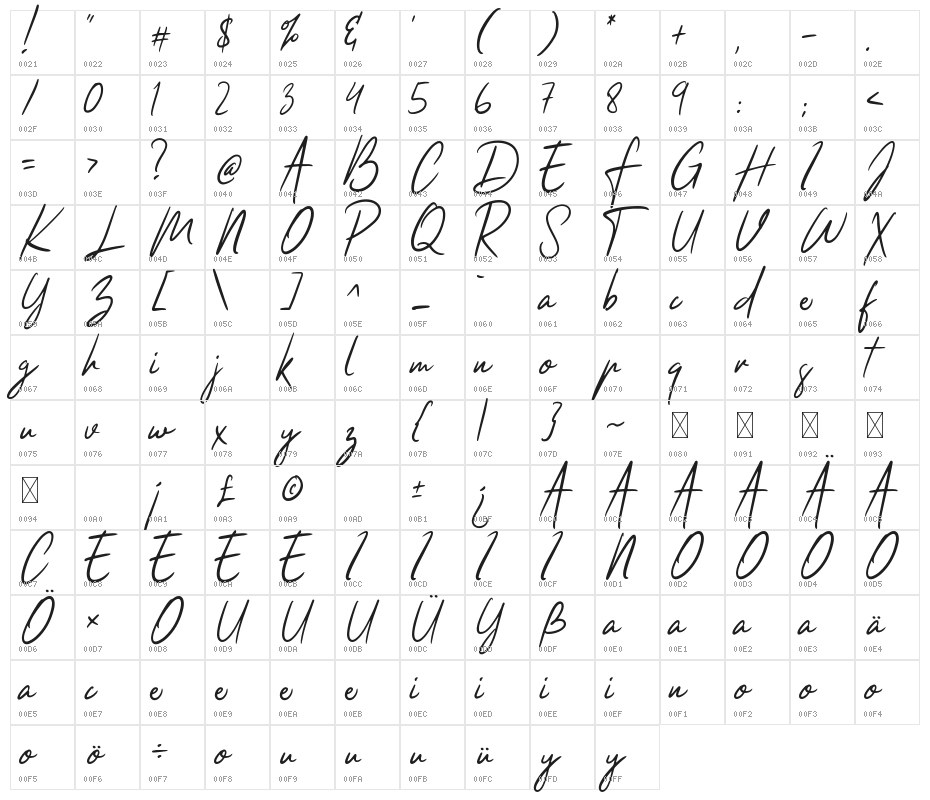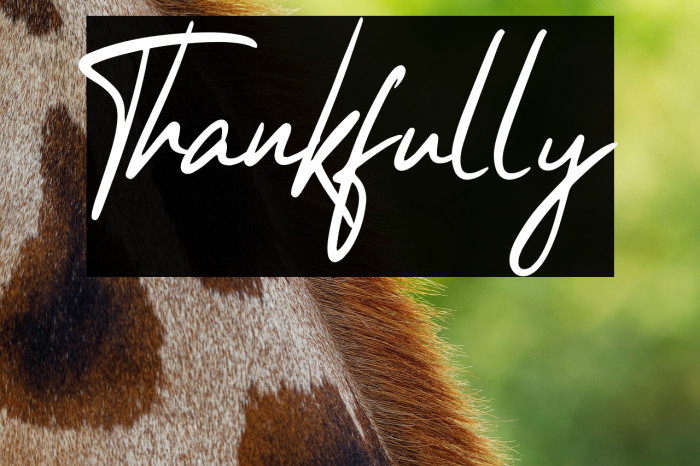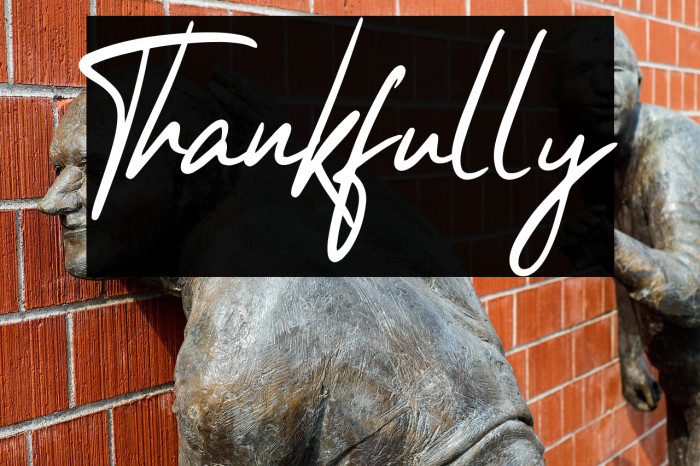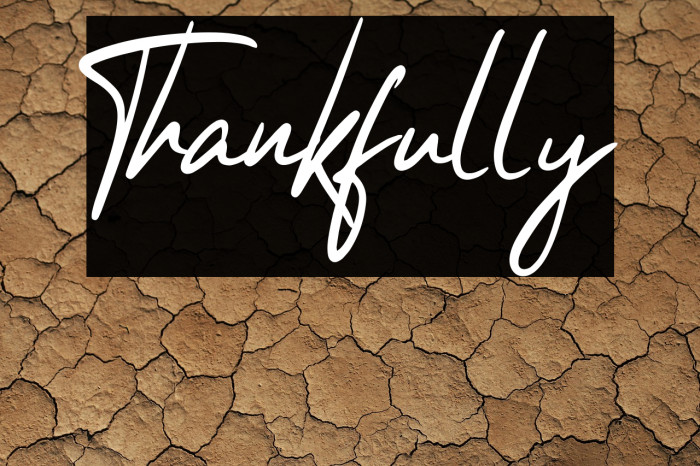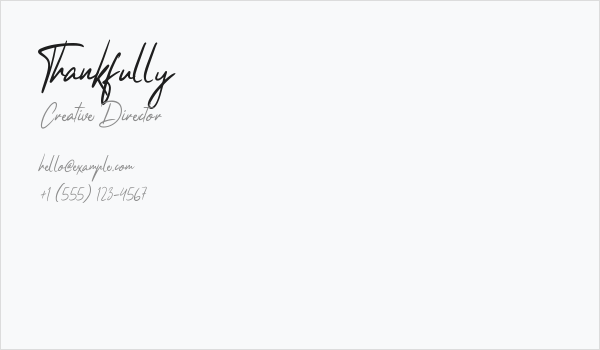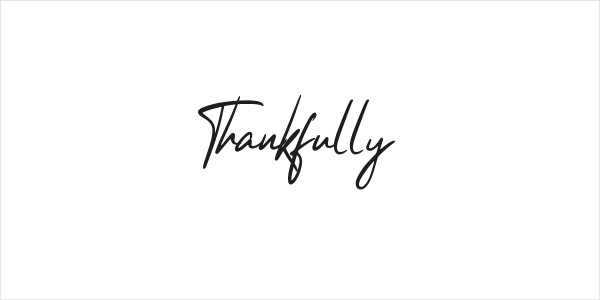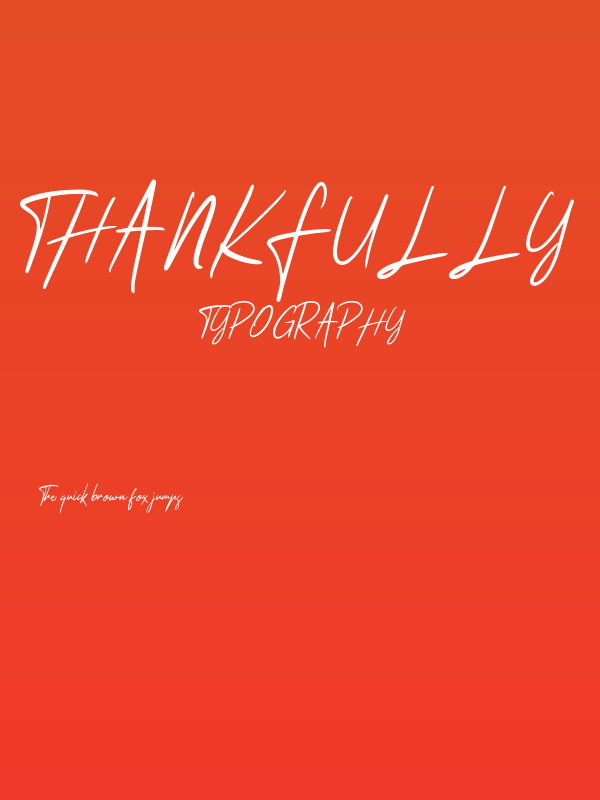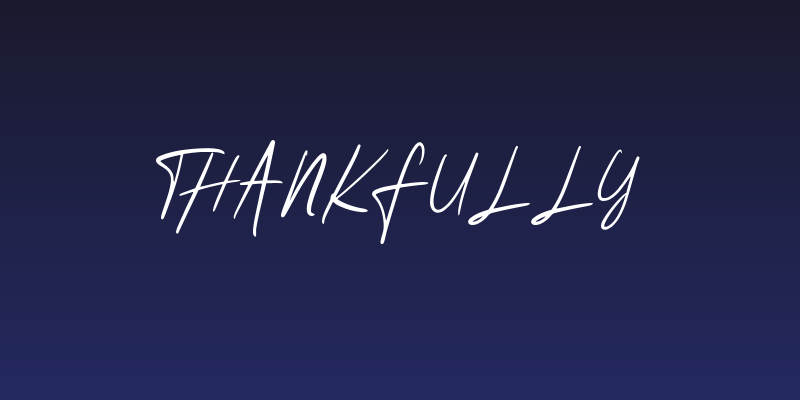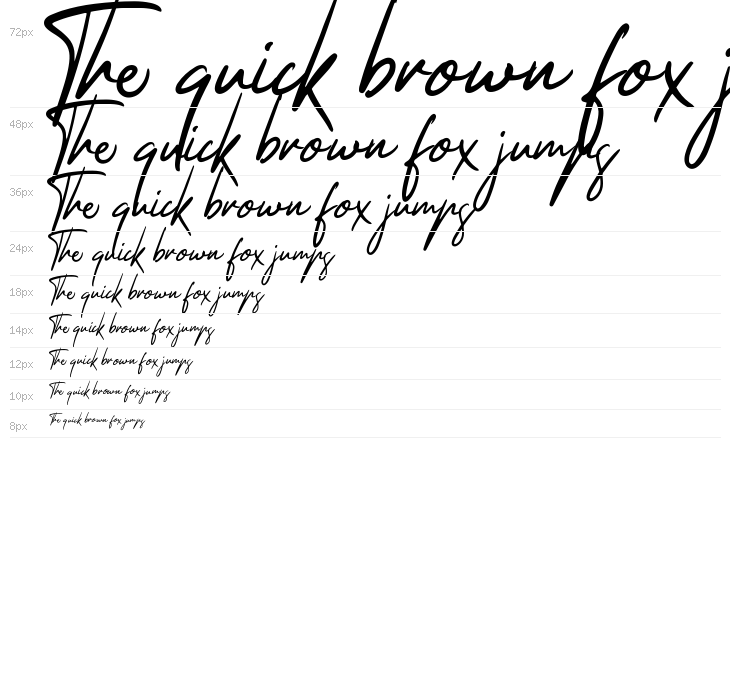
Thankfully Font
Thankfully Description
This font showcases a dynamic and expressive handwritten style, characterized by its fluid and cursive letterforms. The strokes are smooth and continuous, giving it a natural and personal touch. The uppercase letters are slightly more structured, while the lowercase letters exhibit a more free-flowing and casual appearance. The numerals and special characters maintain the same handwritten aesthetic, ensuring consistency throughout. This font exudes a sense of creativity and spontaneity, making it ideal for projects that require a personal or artistic flair.
| Use Case | Logos, Headlines, Creative projects |
| Proposed Projects | Ideal for personal invitations, greeting cards, artistic posters, and creative branding. |